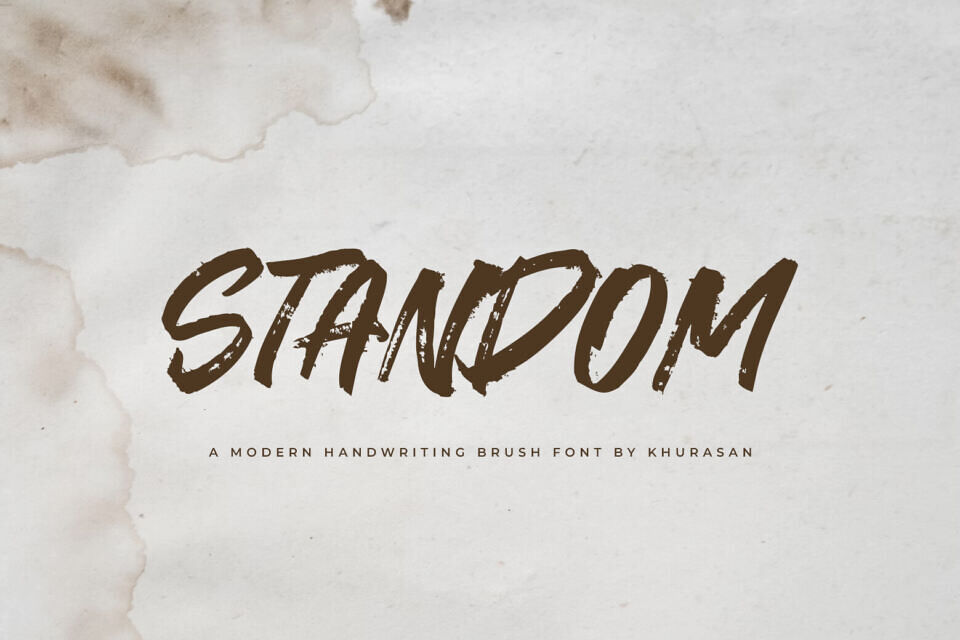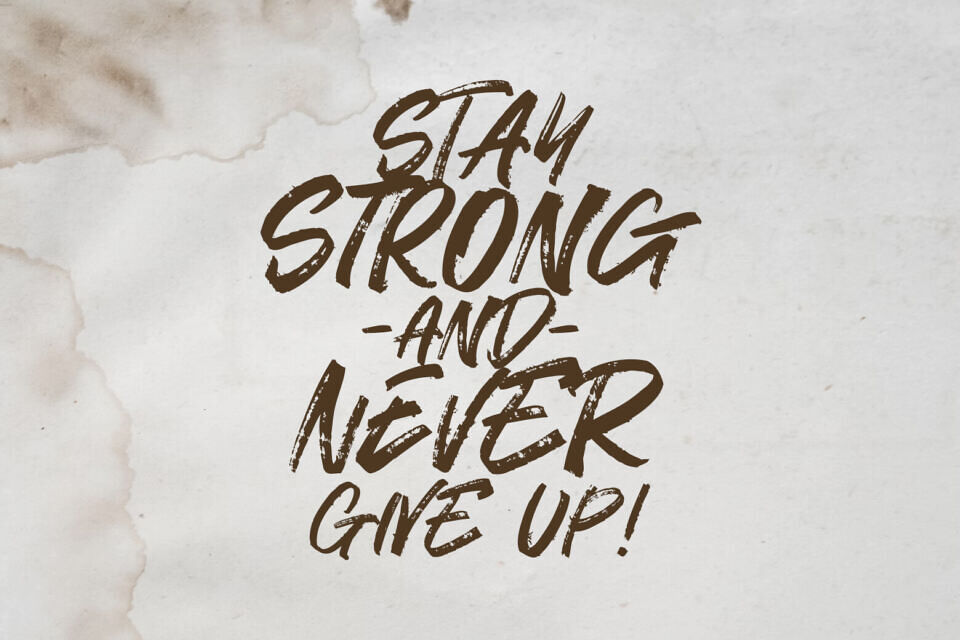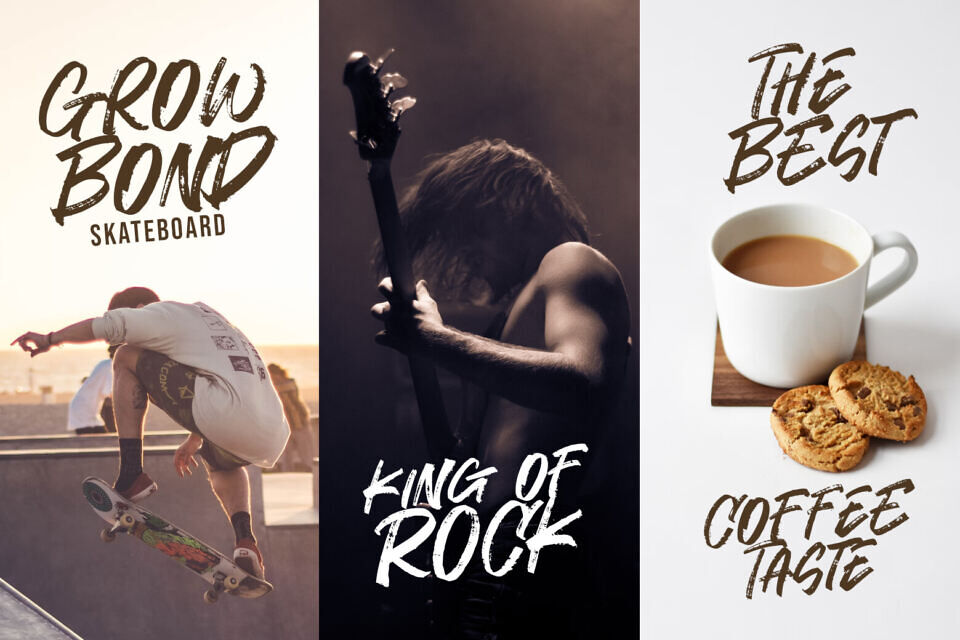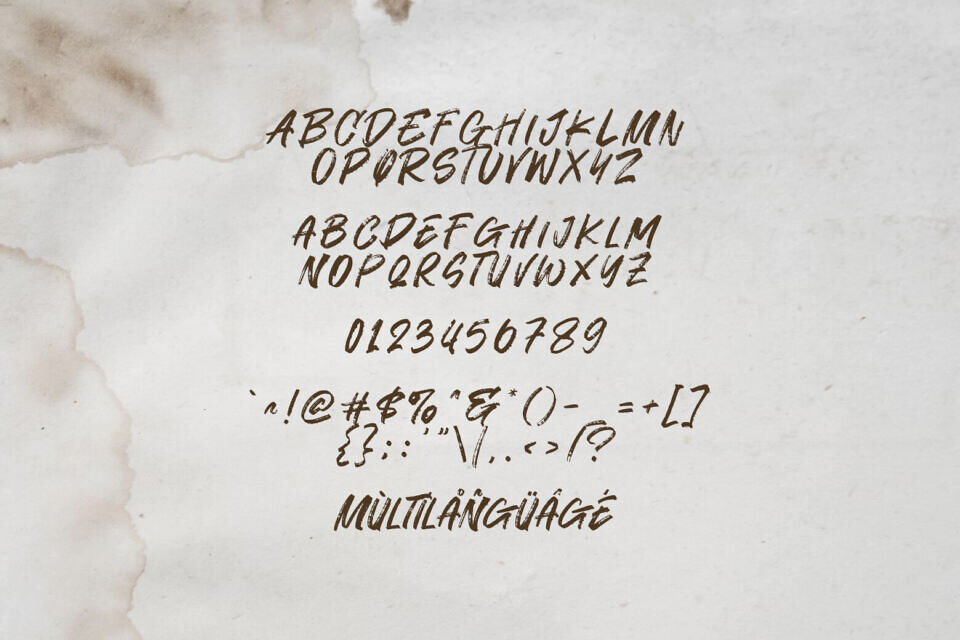
Standom is a modern brush font perfect for posters, logos, magazines, book covers, banners, and many more! Get this quirky display font, and use it to create lovely designs!